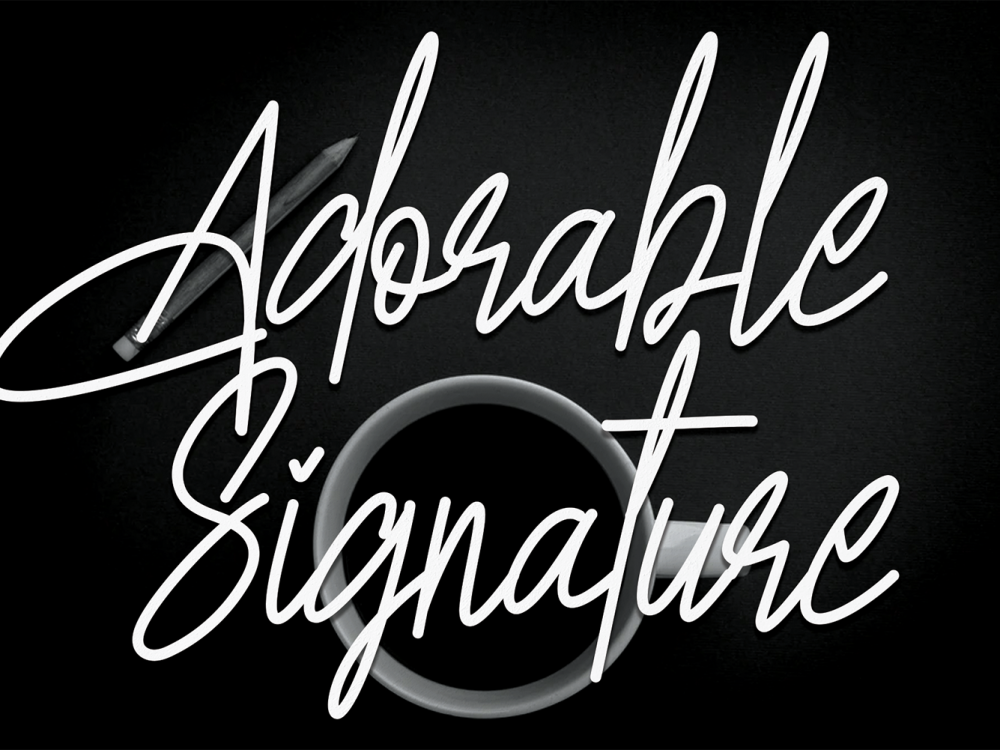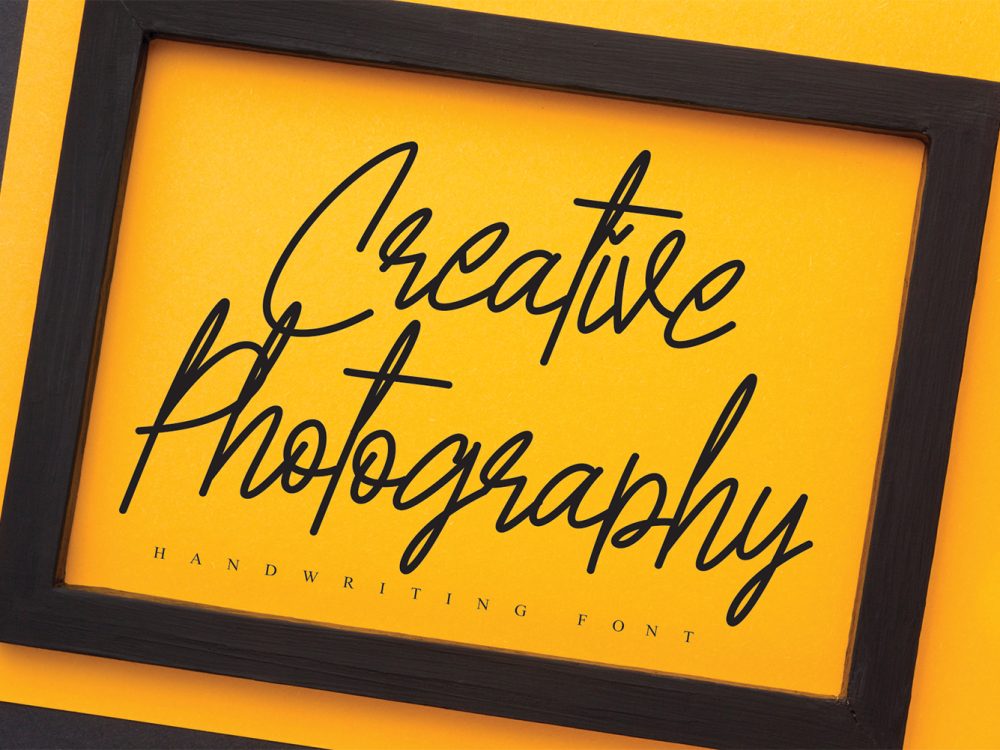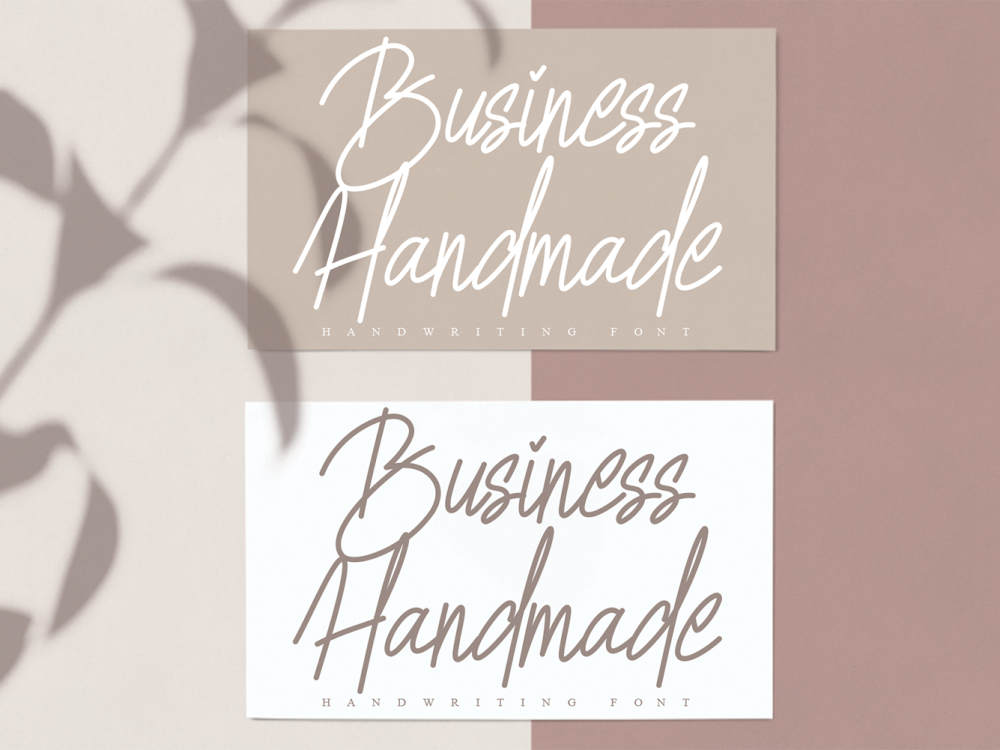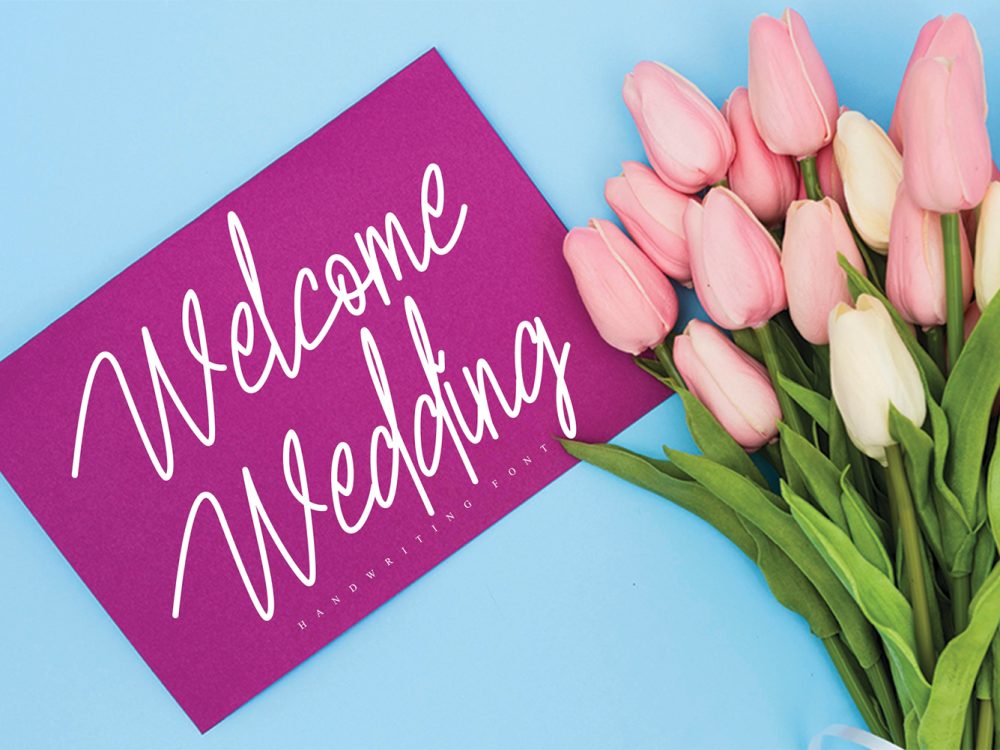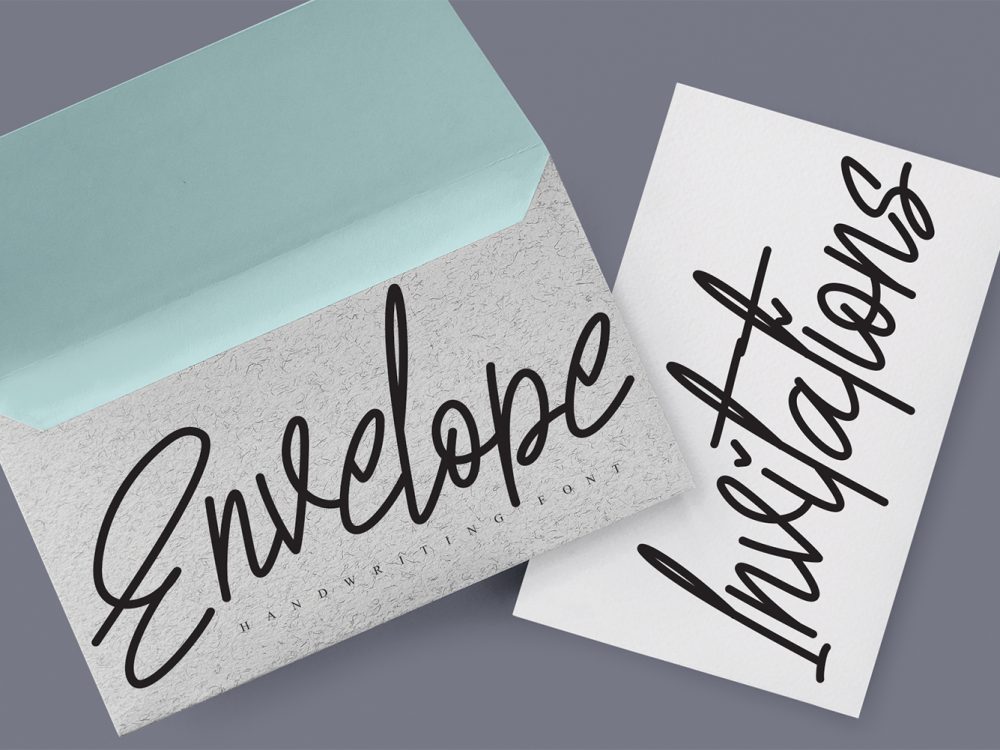
Adorable Signature Free Font
Discover the allure of Adorable Signature Free Font is a script font that effortlessly blends style and exquisite elegance. Its captivating beauty graces wedding invitations, thank you cards, quotes, greeting cards, logos, business cards, and any design craving a sophisticated handwritten essence. If you like it don’t forget to check out the full version.